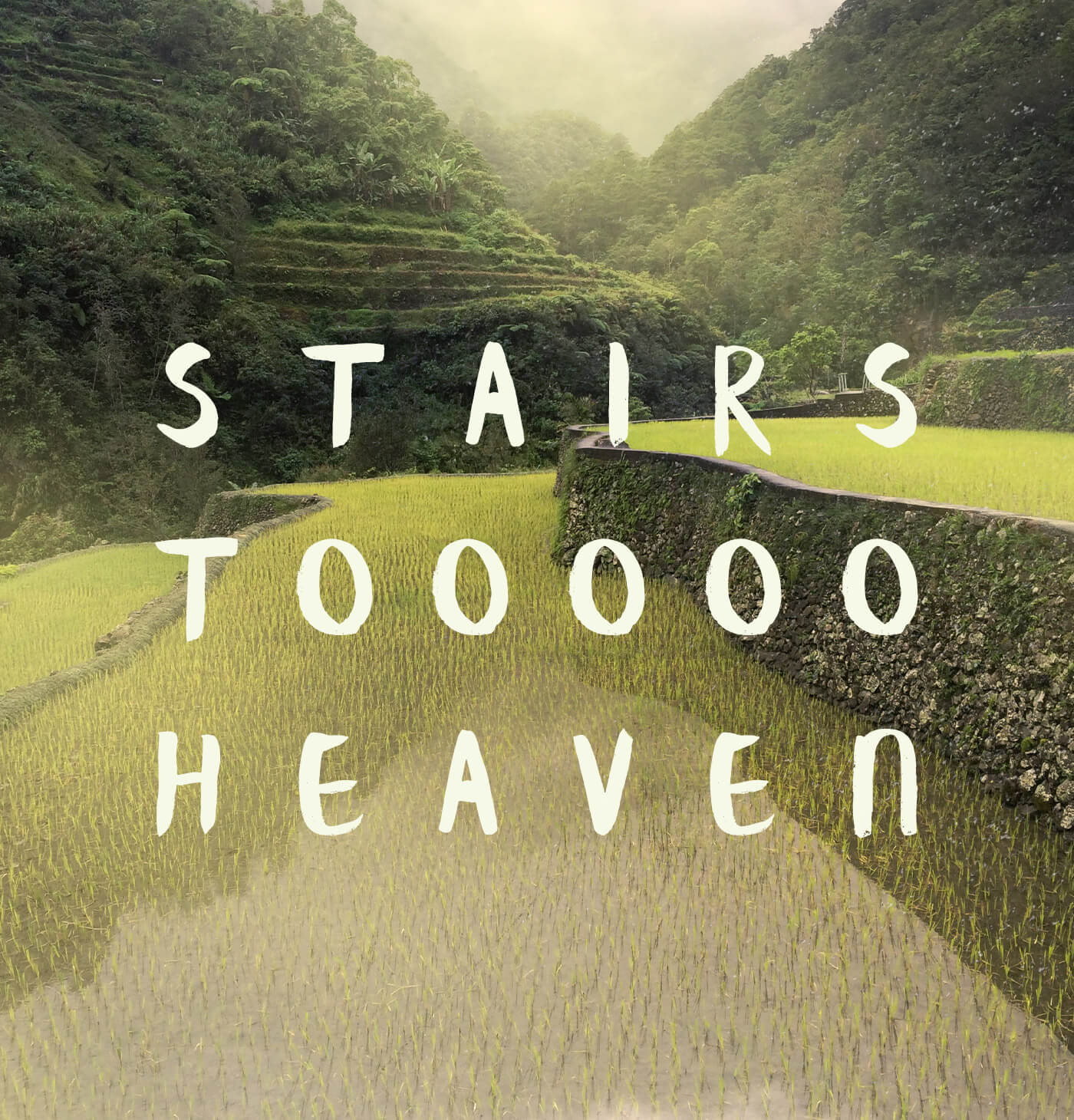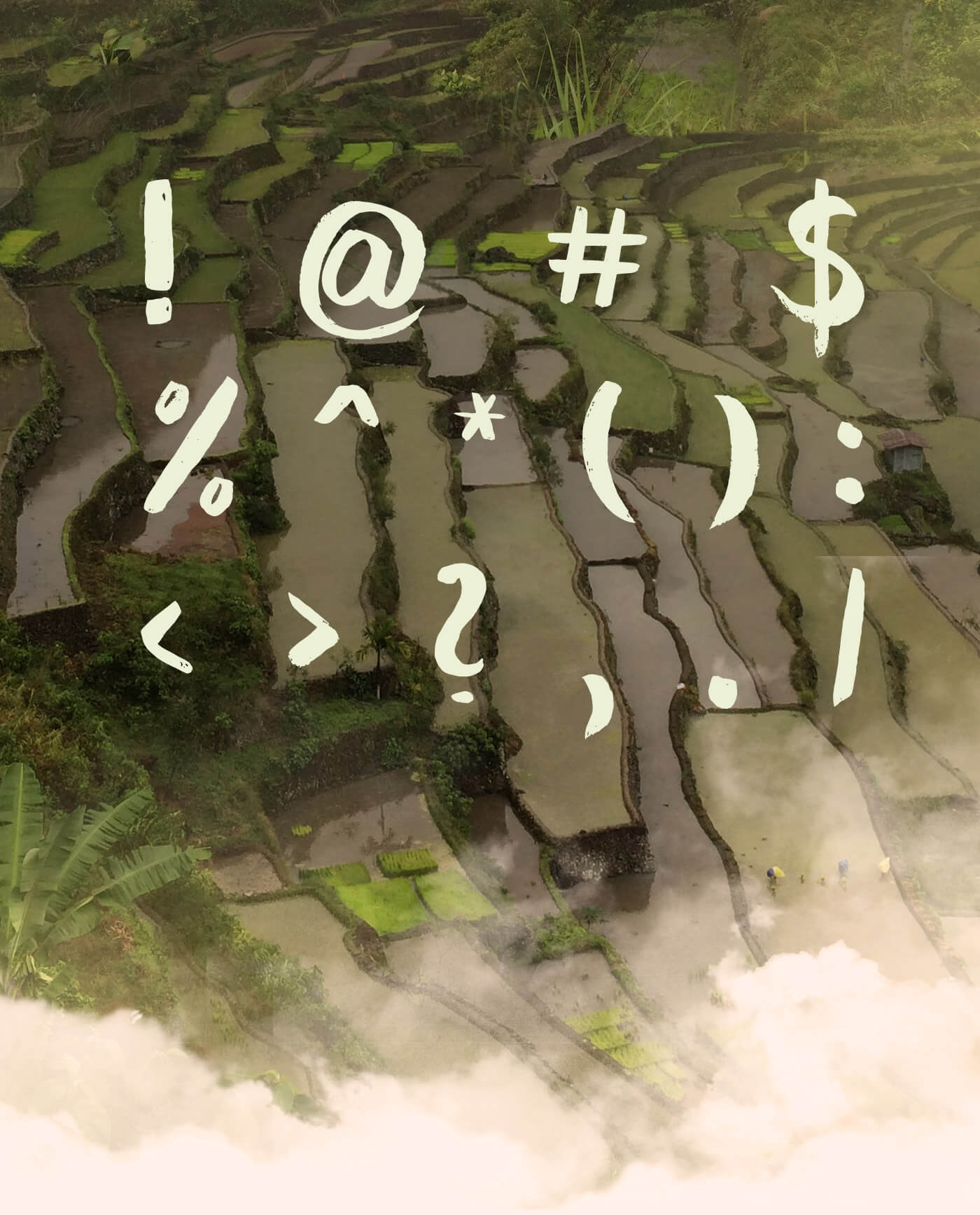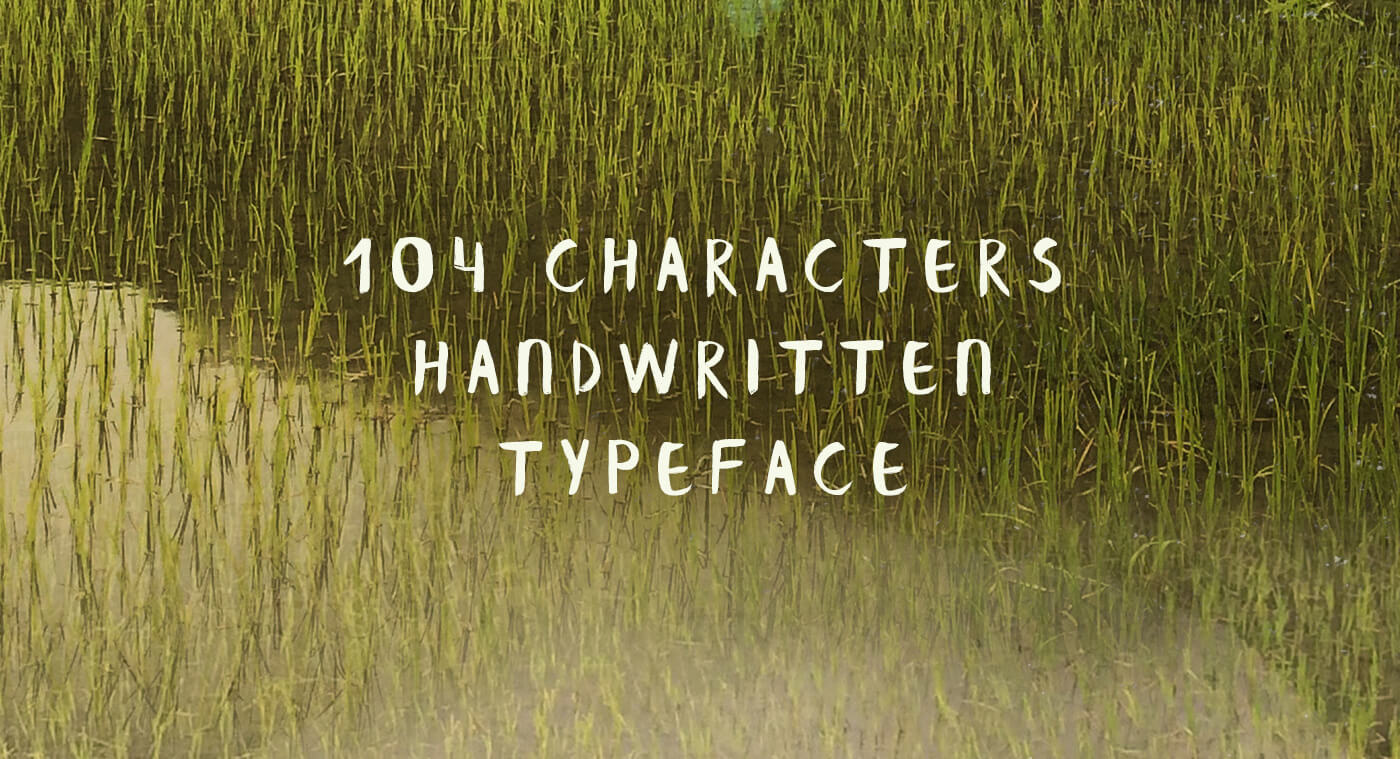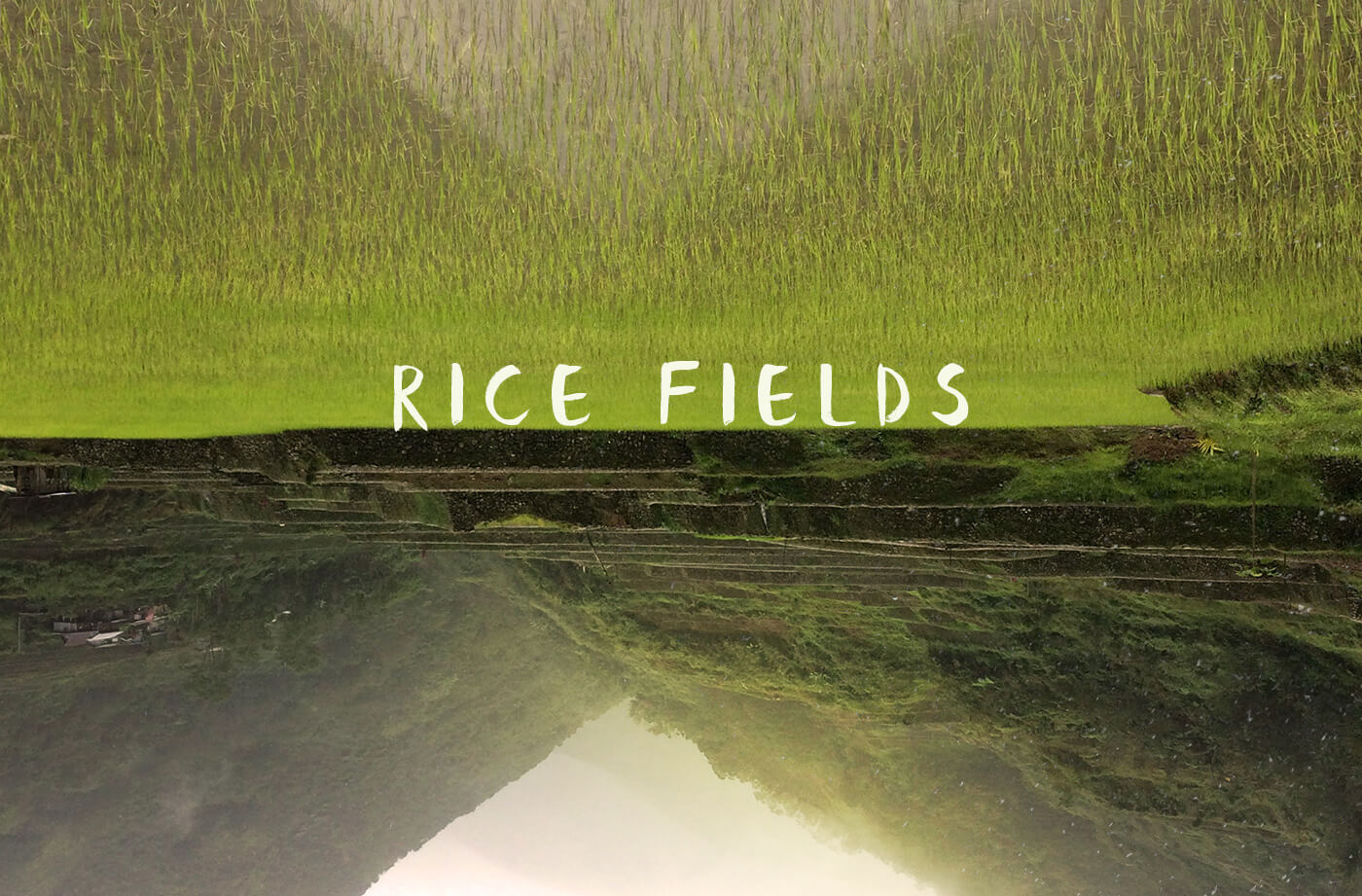
Banaue Handwritten font
Banaue is a handwritten brush font for a homemade look. The font features 104 characters and has all the basic glyphs. The download contains a .otf file. Hand brushed by Ieva Mezule.